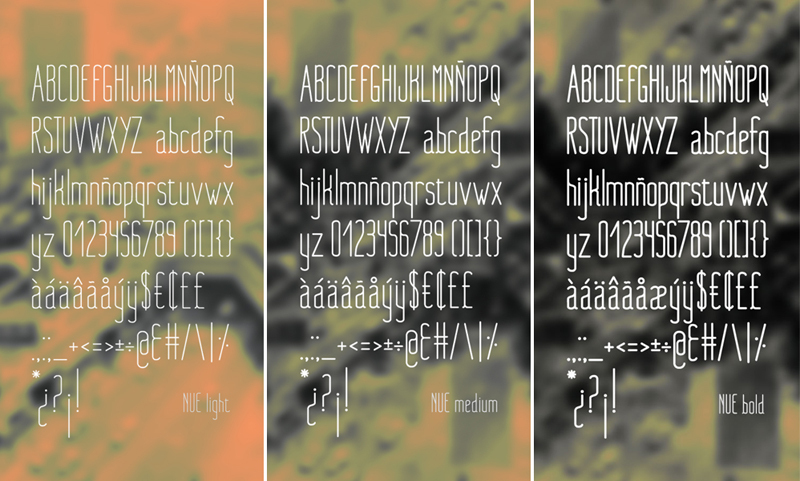
Nue Light, credited to Julia Martinez Diana and Antipixel, is a free retro sans serif defined by towering, narrow letters and exceptionally fine monoline strokes. Rounded joins and compact curves soften its strict vertical construction.
Fashion branding is its clearest role, especially for labels and lookbooks that favor understated, elongated typography. It also lends a chic period note to fragrance packaging and music posters, where the slim silhouette can echo linear artwork. In editorial design, it suits magazine section openers and culture features with a refined retro angle.